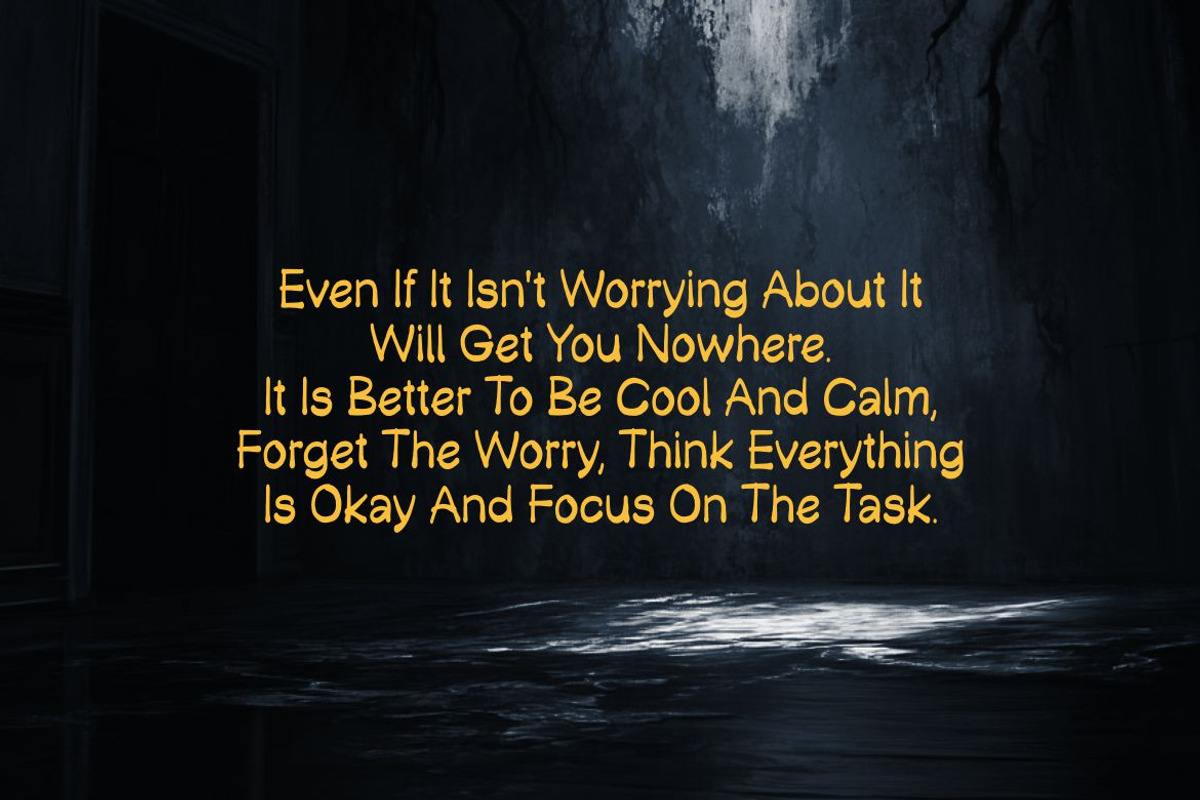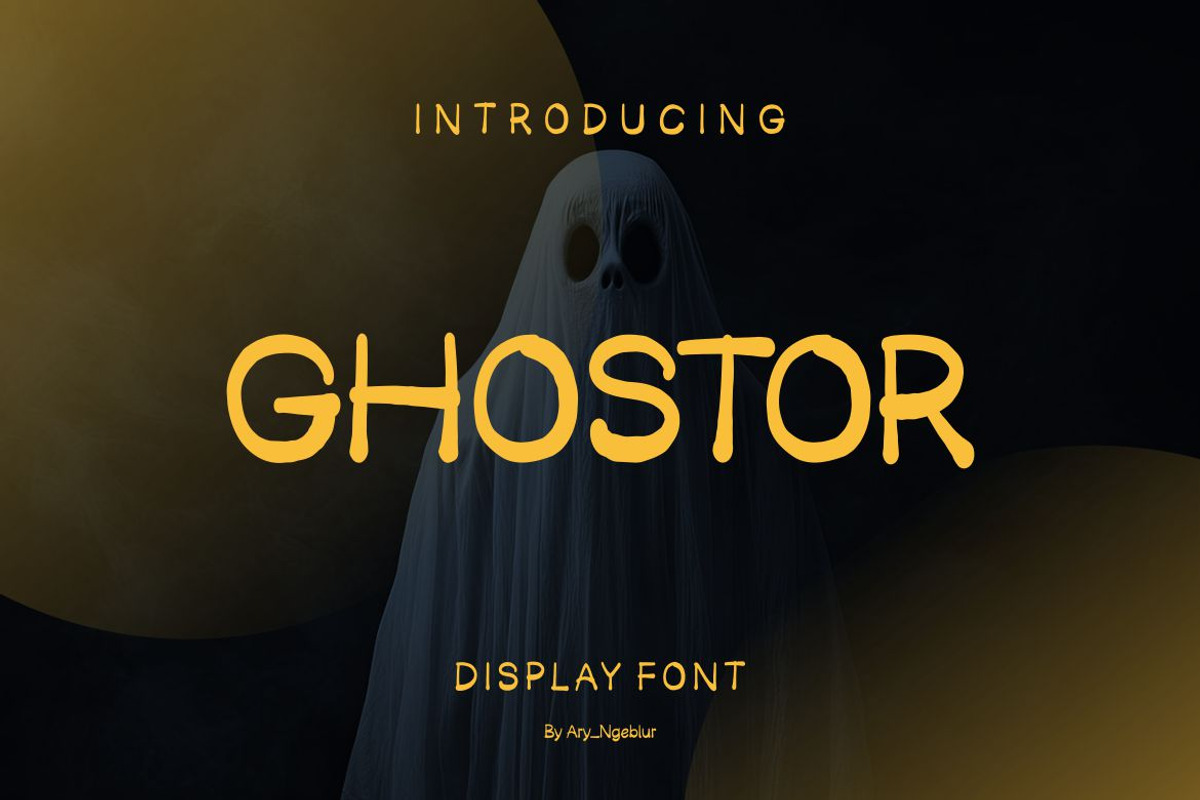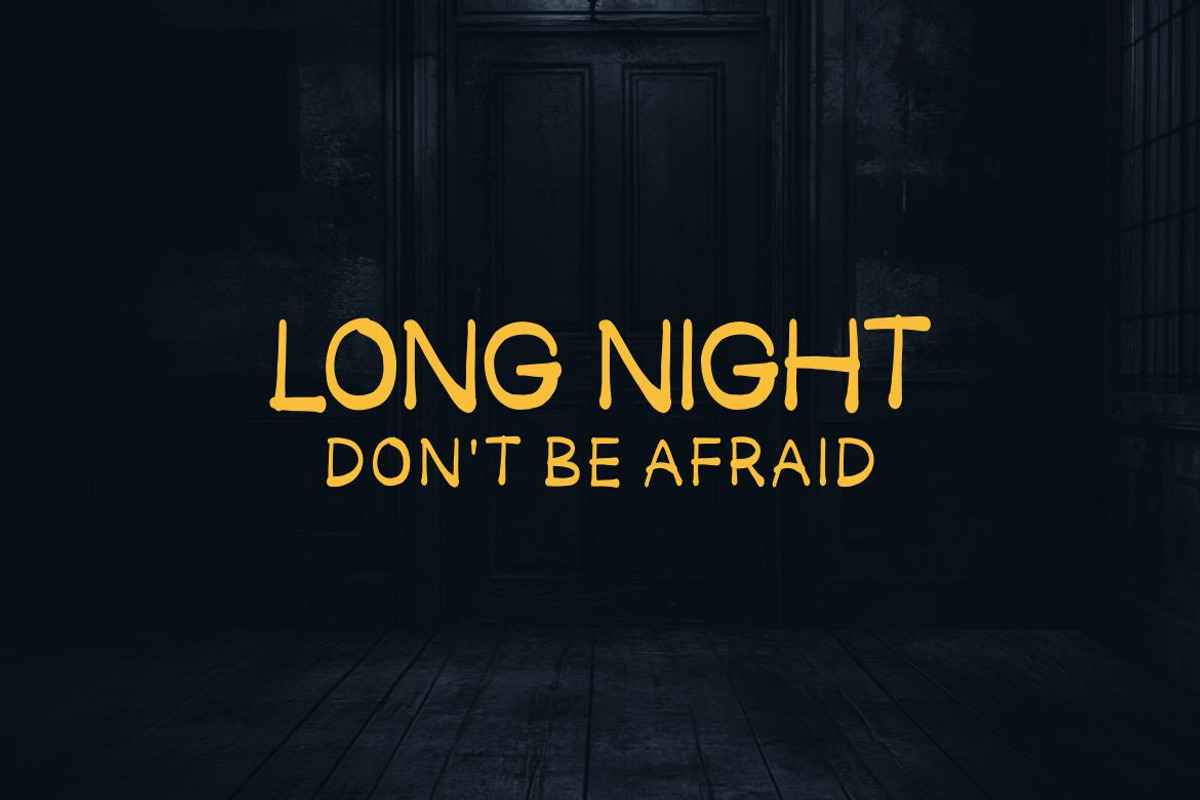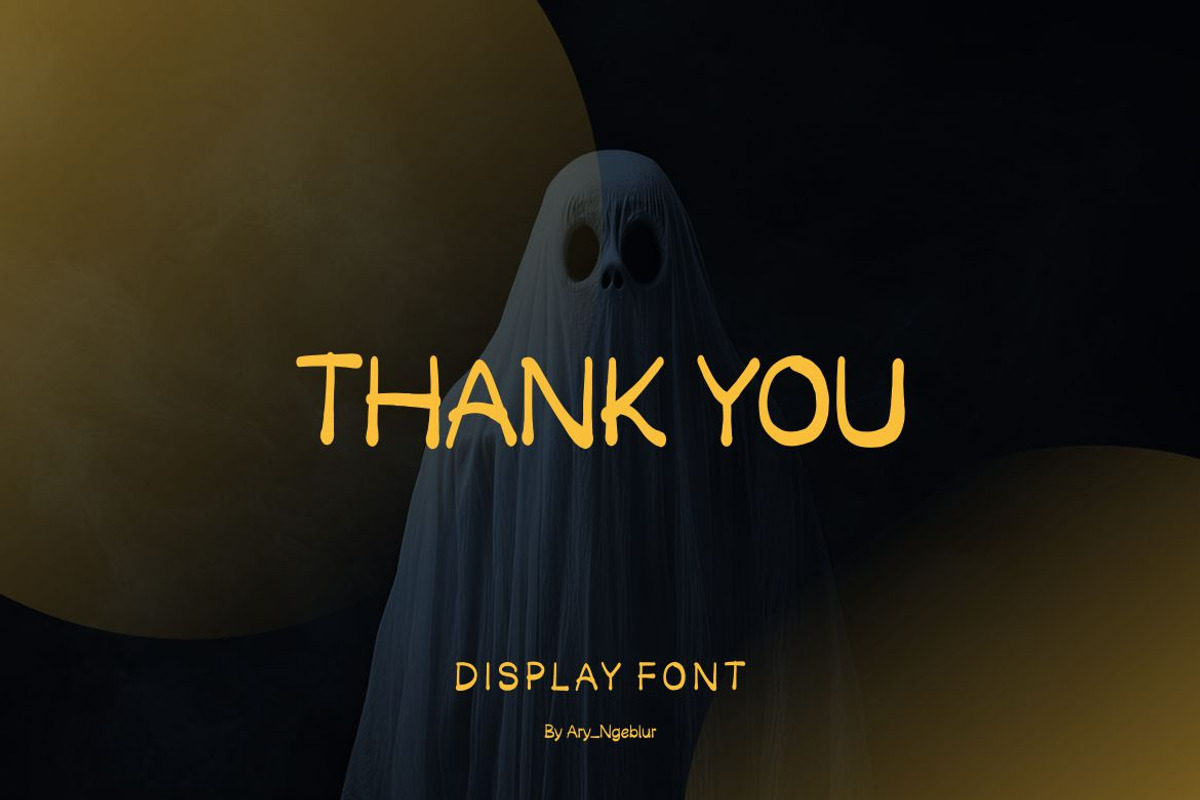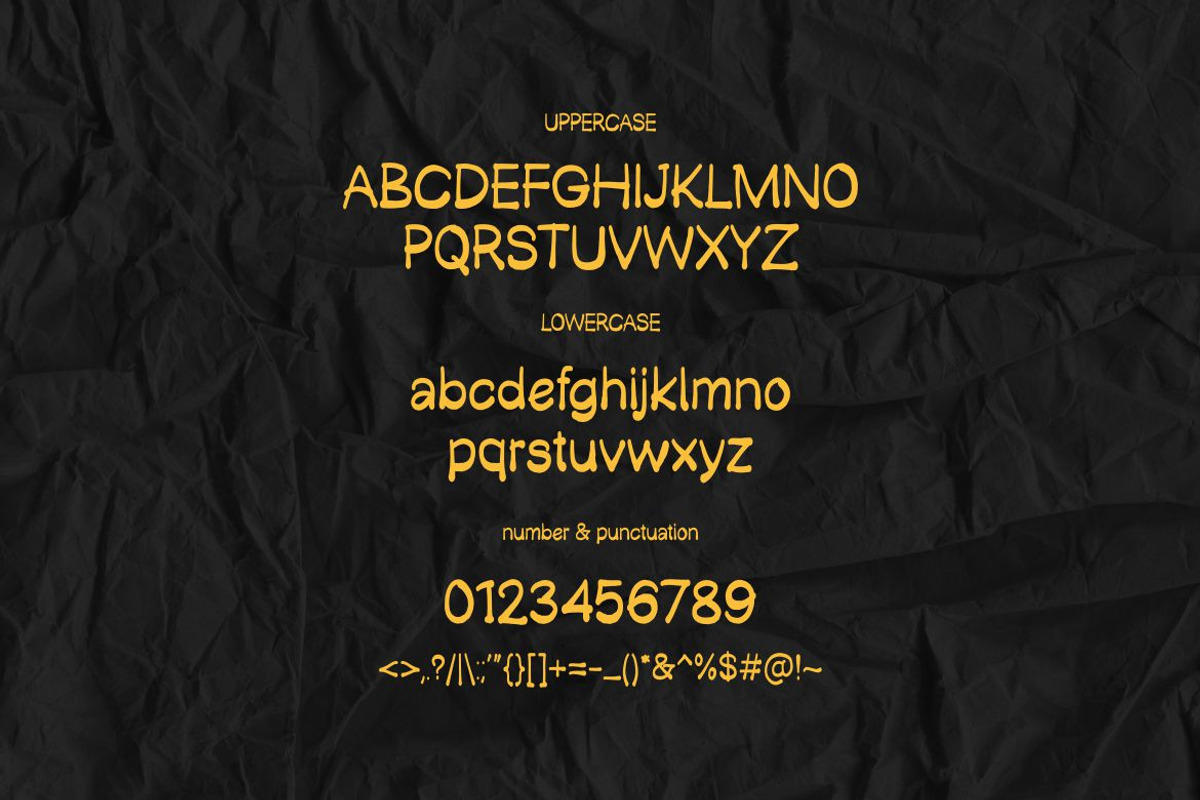
Ghostor - Display Font
Introducing GHOSTOR , a cool and elegant Display Font. Elegant font feel. This font gives you a beautiful and modern atmosphere. suitable for posters, book covers, cards, merchandise, etc.